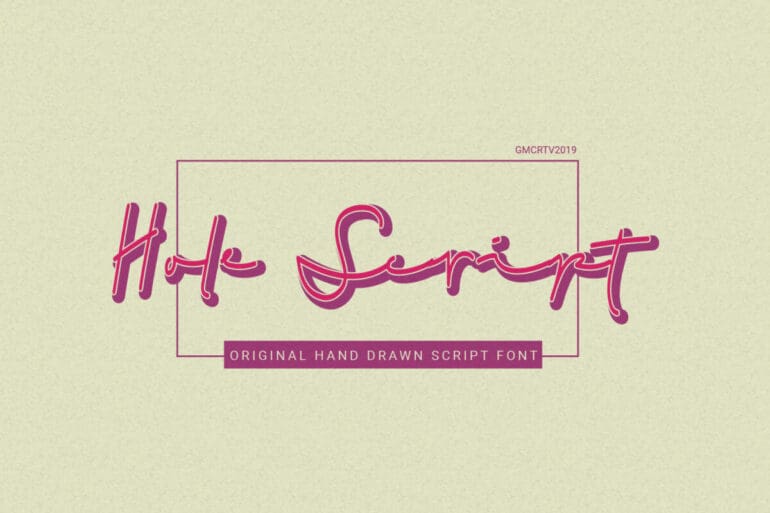
Hole Script Handwritten Font
Hole Script Handwritten Font. This pair was inspired by the signature design that I saw on some coffee shops, It was crafted by hand especially to add a natural handmade feeling in its brand identity than I make it clean with pentool.